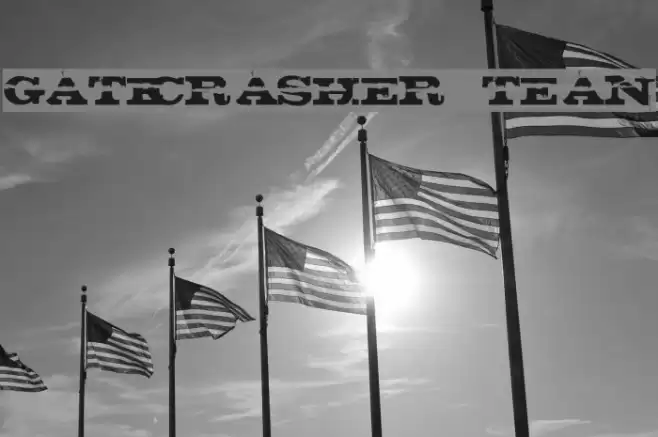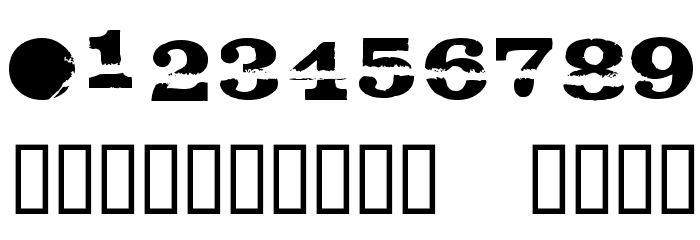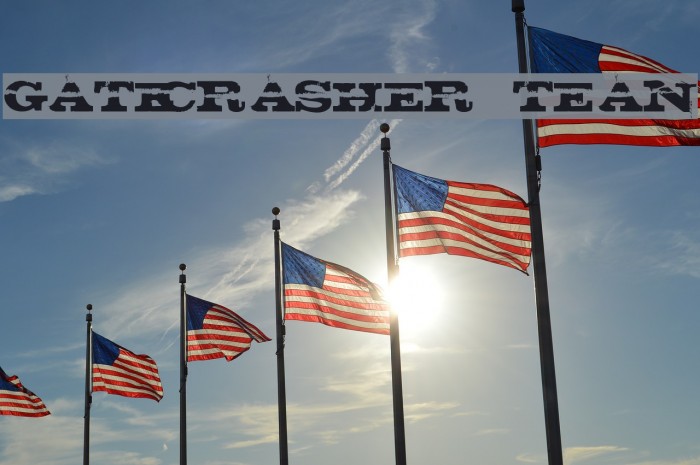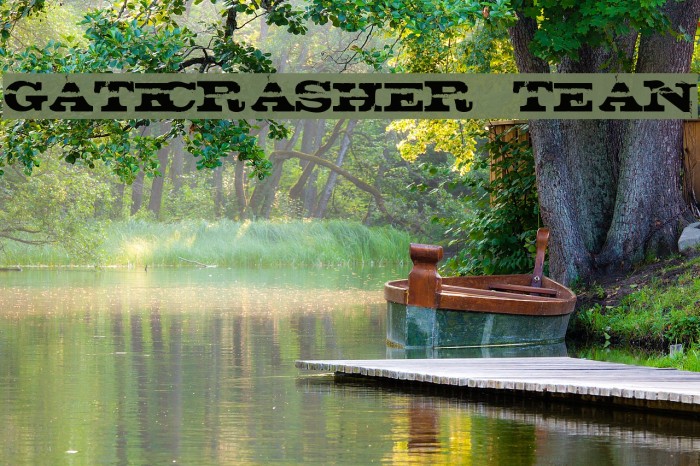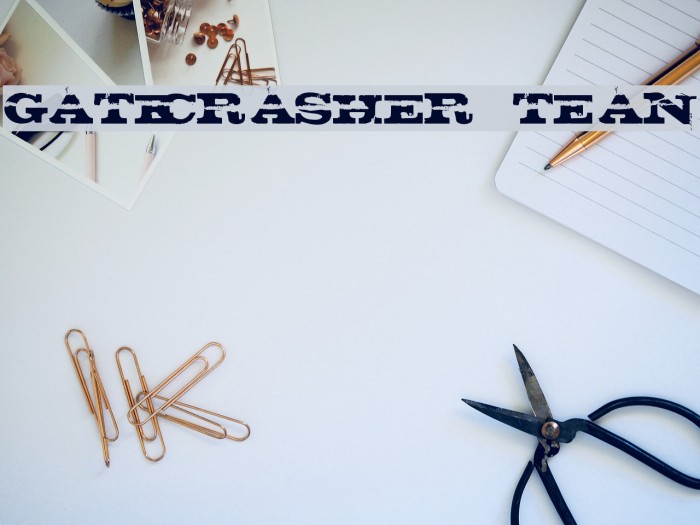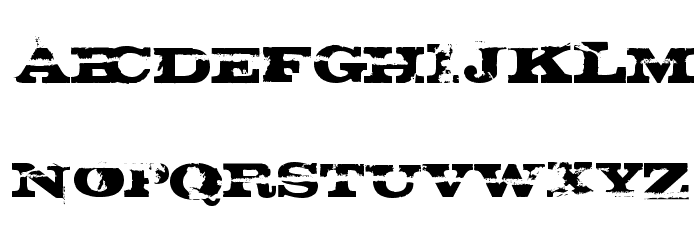
gatecrasher texan Font
gatecrasher texan Description
This font features a bold, distressed style with a rugged, textured appearance. The characters are heavily weathered, giving them a vintage, worn-out look reminiscent of old Western signage or rustic branding. The uppercase letters are prominent and impactful, while the numbers and special characters maintain the same distressed aesthetic. This font's unique style makes it stand out, perfect for projects that require a touch of grit and character.
A bold, distressed font with a rugged, vintage appearance from Distorted Eroded fonts.
- Proposed Projects: Ideal for Western-themed designs, vintage posters, rustic branding, and any project needing a gritty, textured look.
- Overall Style: Vintage
- Use Case: Logos, Posters, Headlines